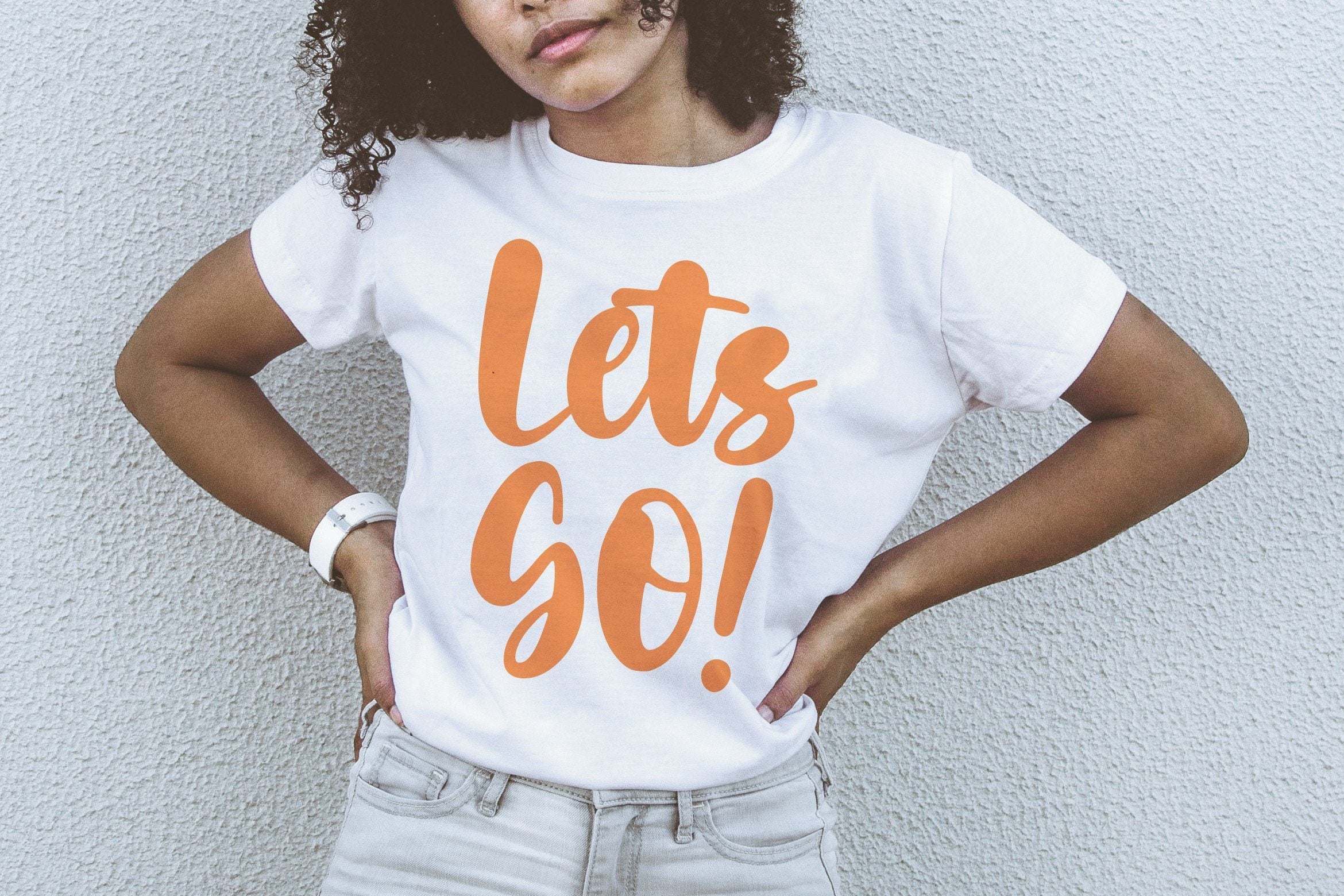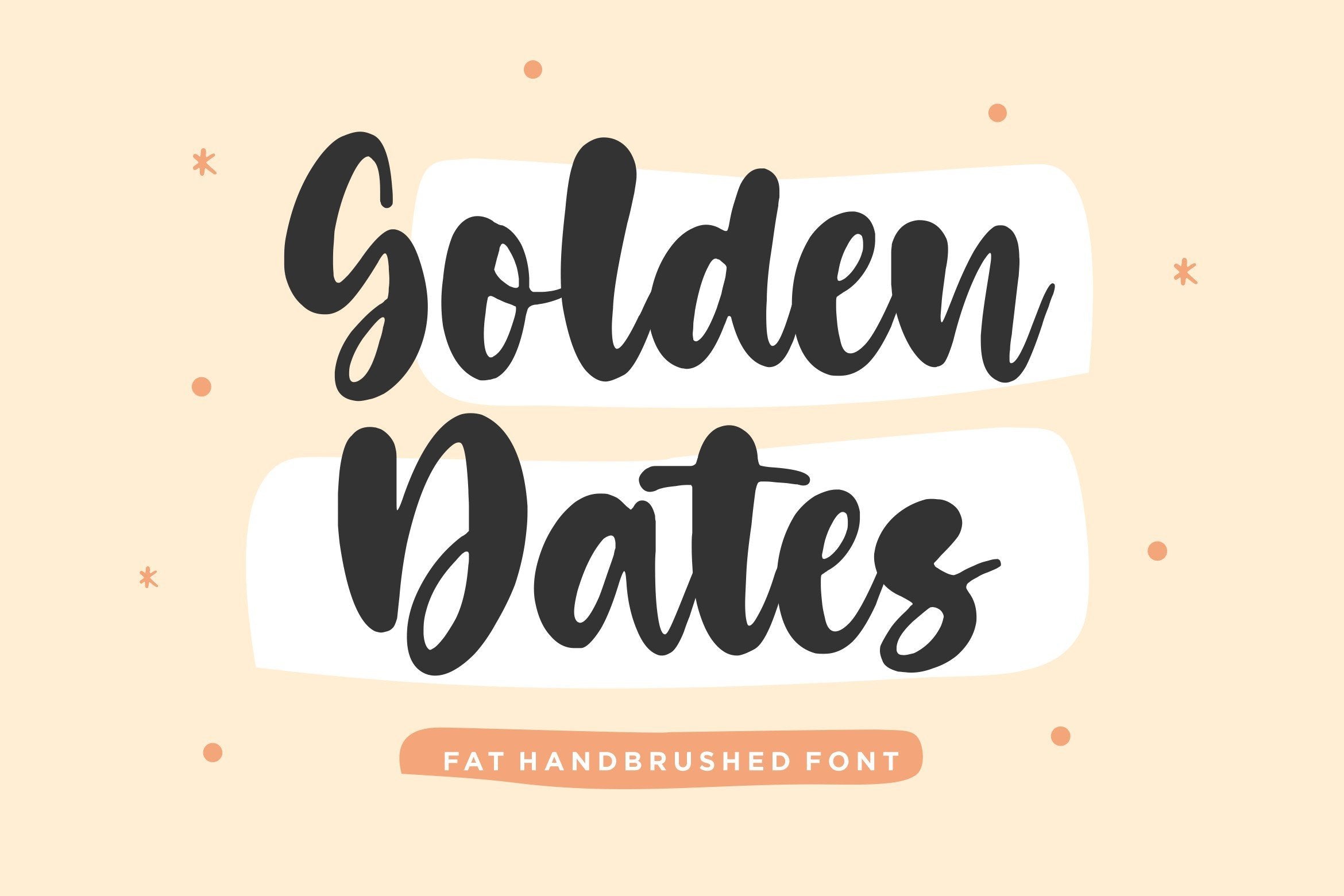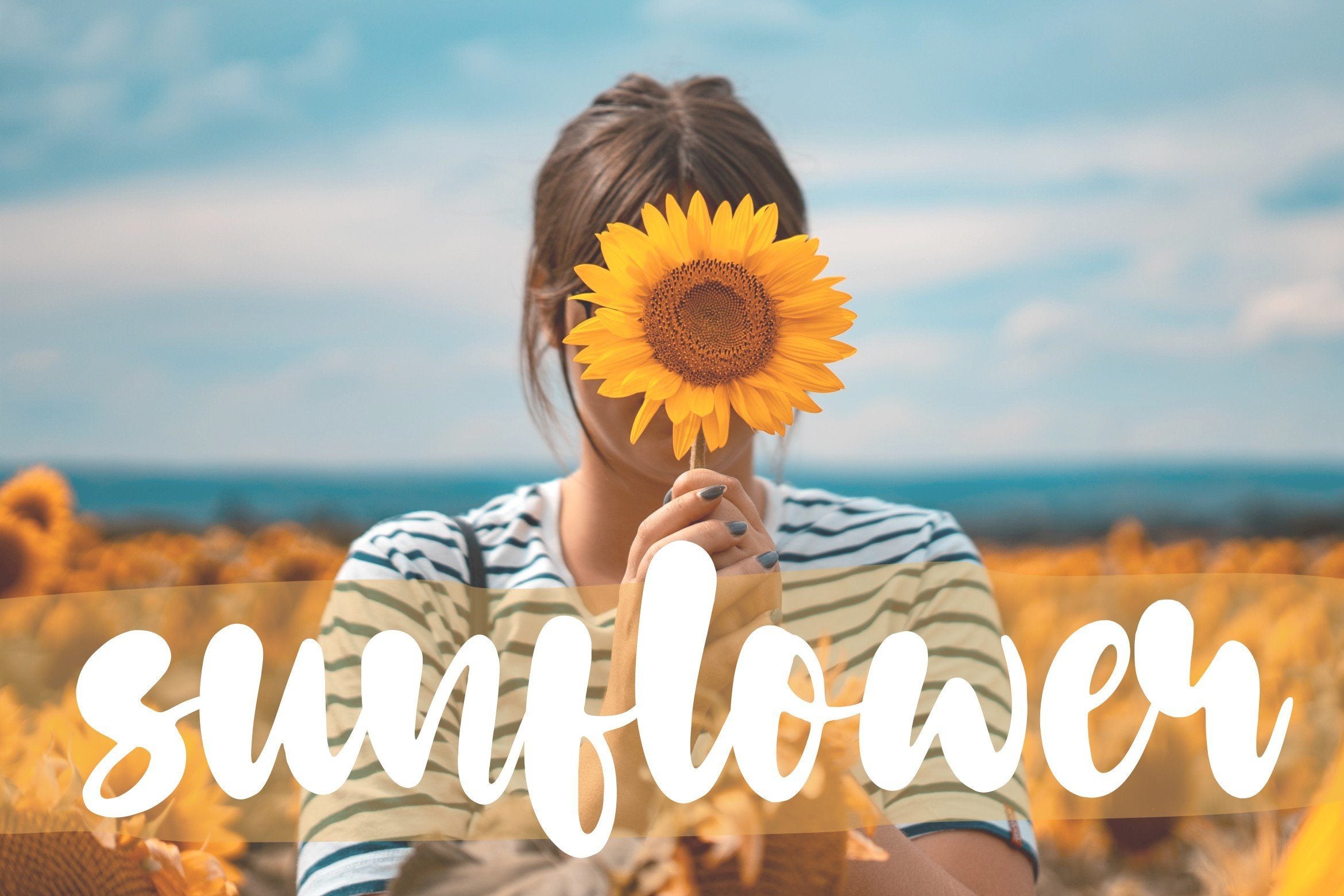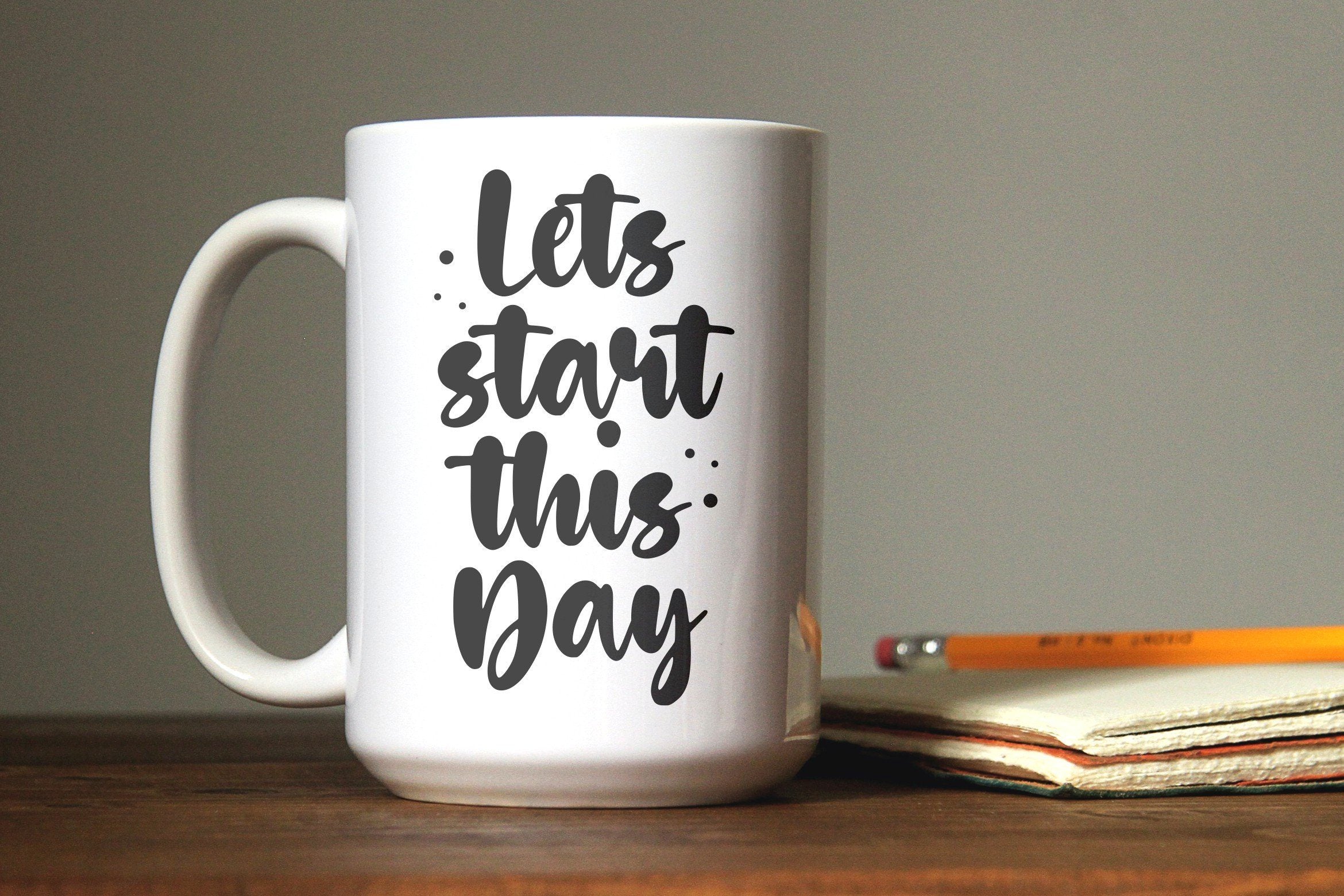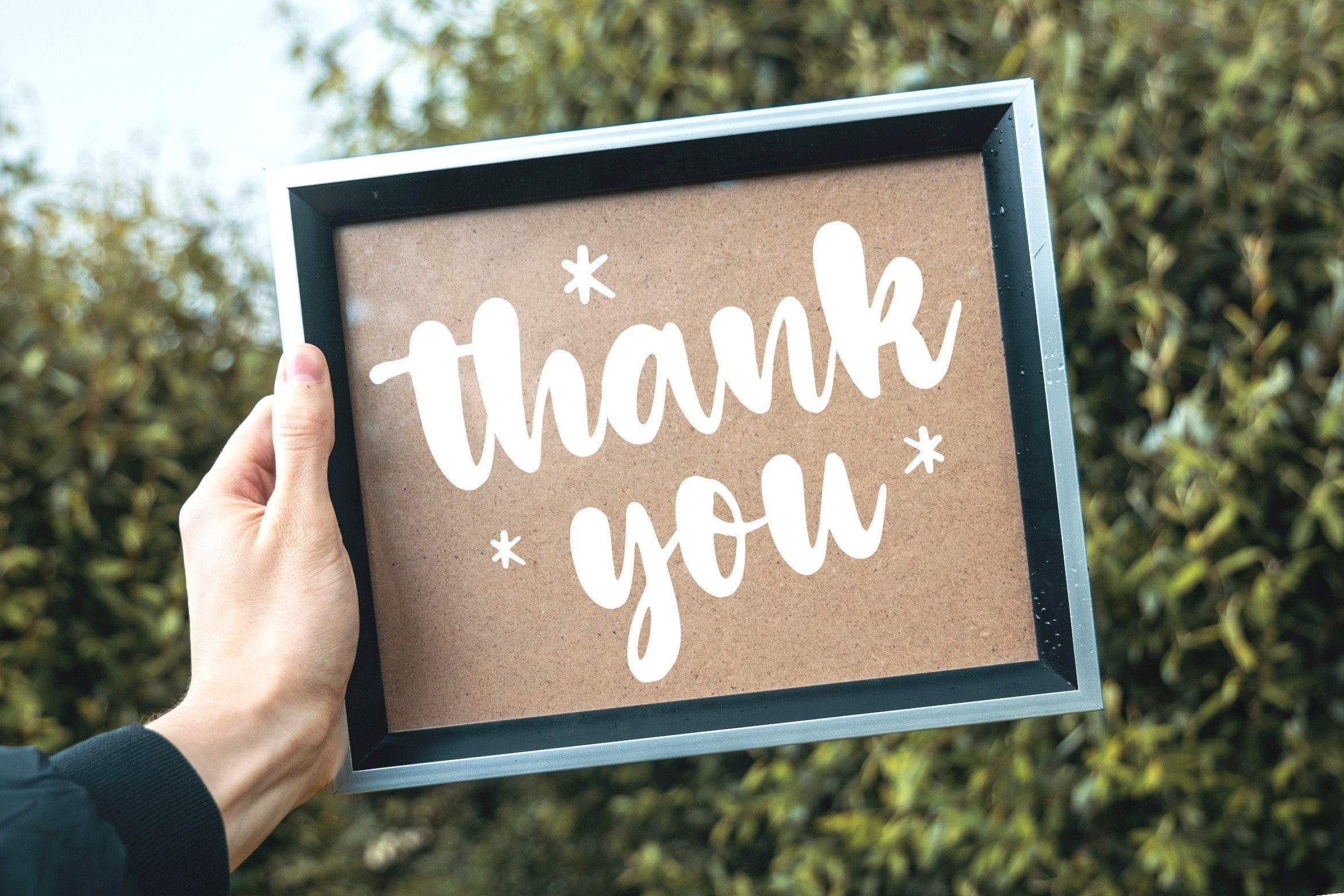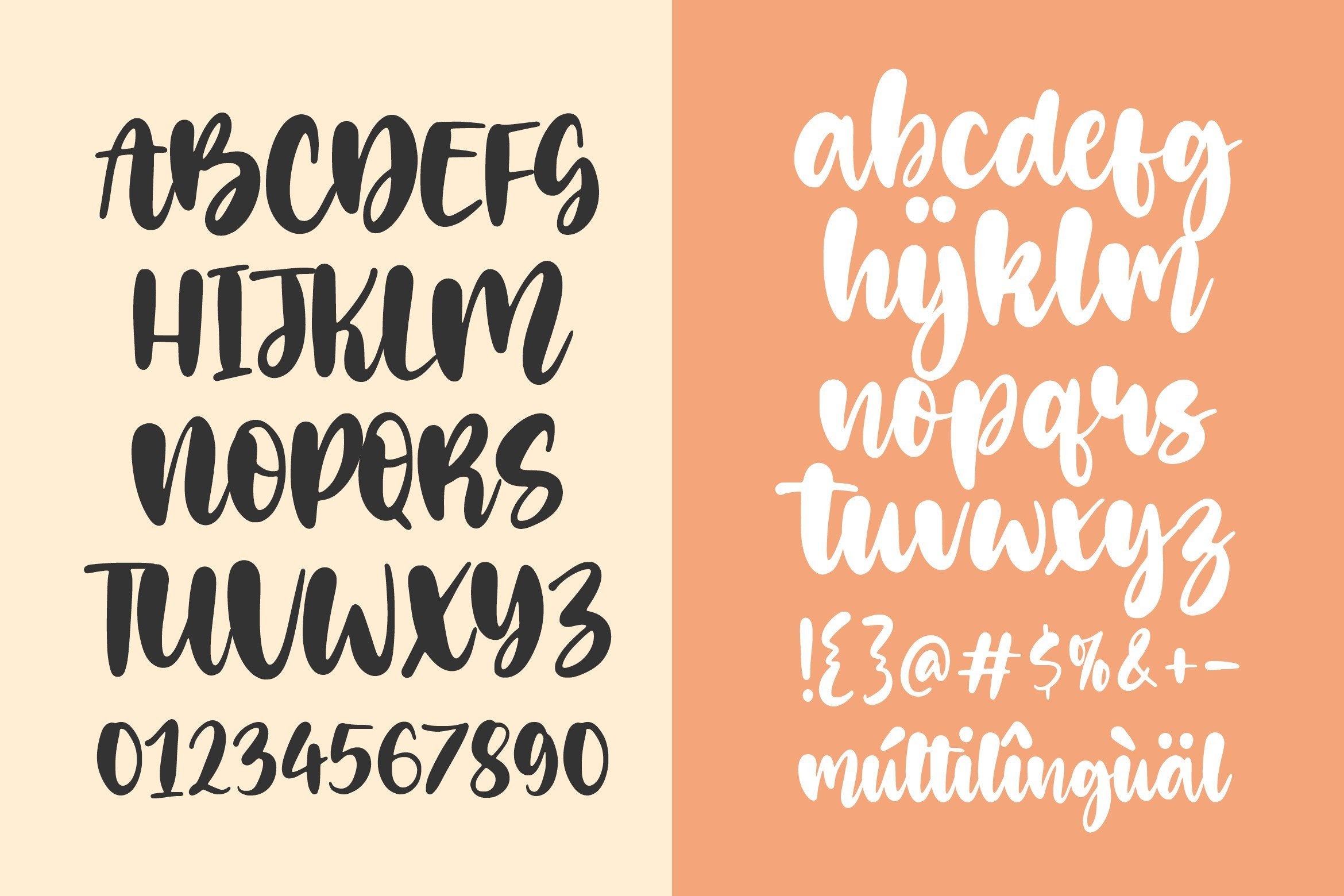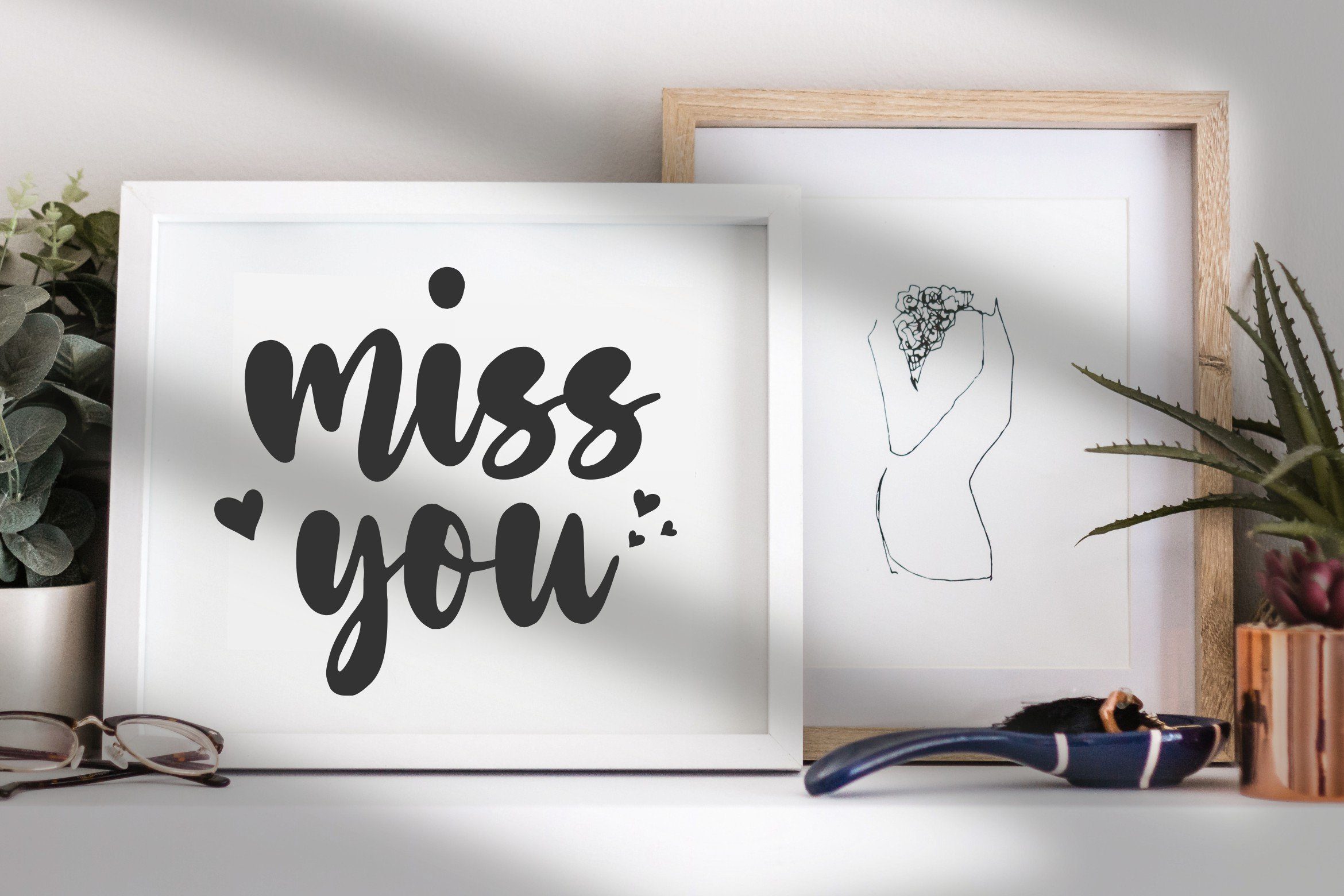
Golden Dates Modern Calligraphy Font
About Golden Dates Modern Calligraphy Font
Introducing by Balpirick Studio. Proudly Present, Golden Dates Font. Golden Dates is a Modern Calligraphy Font. Golden Dates is a stylish and trendy script font. It looks stunning on wedding invitations, thank you cards, quotes, greeting cards, logos, business cards and every other design which needs a handwritten touch. This font includes TTF, OTF and WOFF, Golden Dates also multilingual support. Enjoy the font, feel free to comment or feedback, send me PM or email. Thank you!